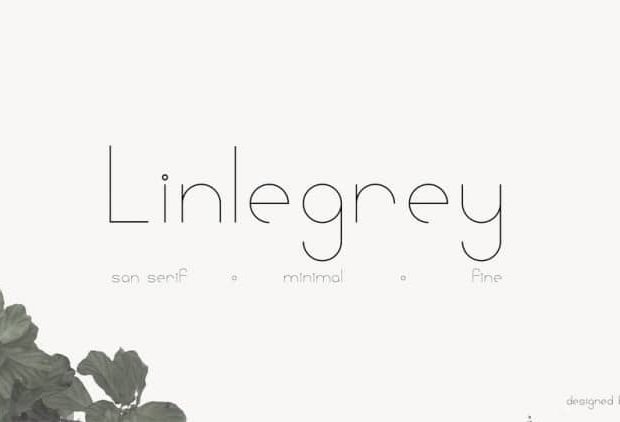
Linlegrey Font
Linlegrey Sans Serif Font is a futuristic sans serif font that takes on the theme of advanced technology. inspired by spaceship construction on pop culture depictions. Made from font designer named white supply. Modern / Minimal / Fine Linlegrey is perfect for your design. It suits perfectly for your branding, logo, even your lifestyle blog!